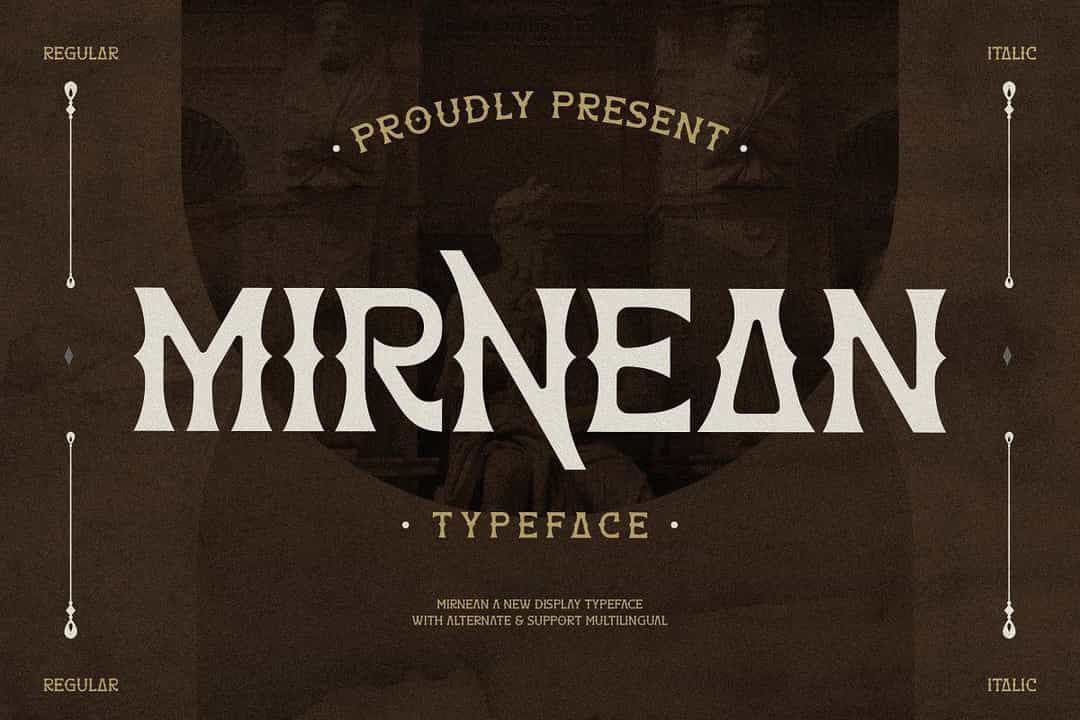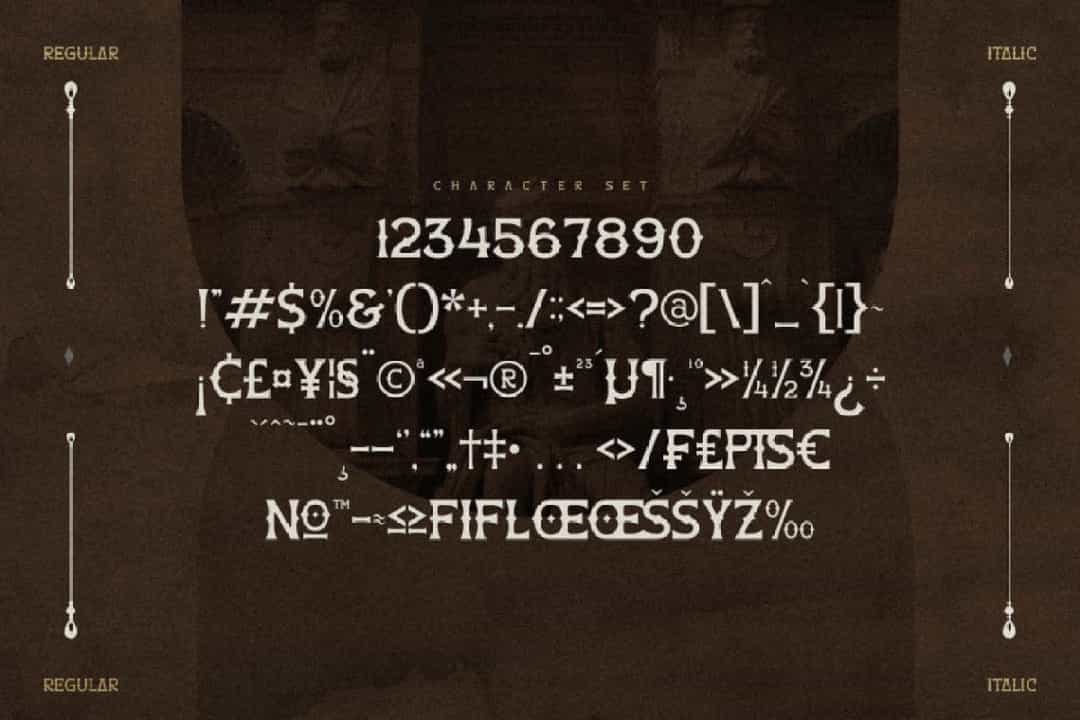
Mirnean Font, designed by Storytype, is an impressive modern serif and classic typeface with its distinct style and contemporary appearance, perfect for creating elegant logos, movie or book name designs, fashion brand magazine covers, clothes lettering quotes or much more.